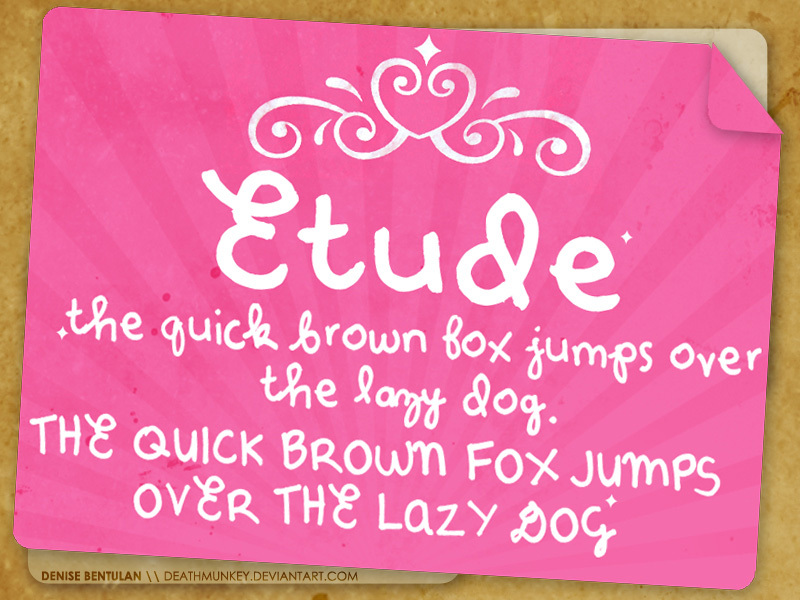
Denne Etude, drawn by Denise Bentulan, is a free handwritten brush font with softly rounded strokes and an easygoing, personal manner. Its uneven stroke widths, open spacing, and gently irregular forms recall lettering made quickly with a loaded marker, yet the shapes remain simple and readable.
For bakery packaging, the loose handwriting can suggest a note added directly by the maker. It also suits children's books and informal event posters. Across these different uses, it is most convincing as a brand voice for small food, craft, or lifestyle products seeking a plainly handmade identity.